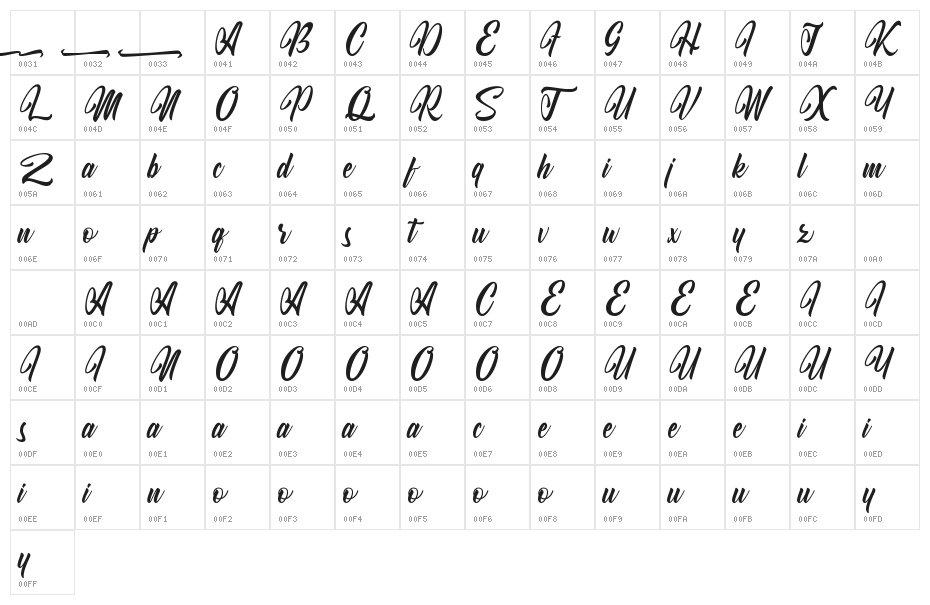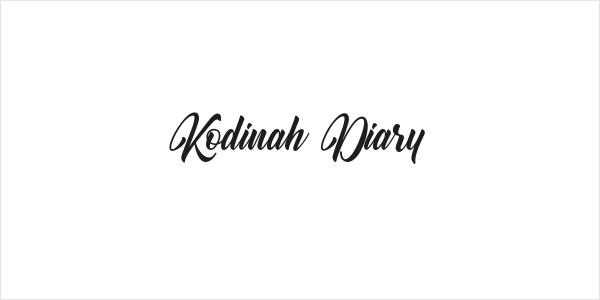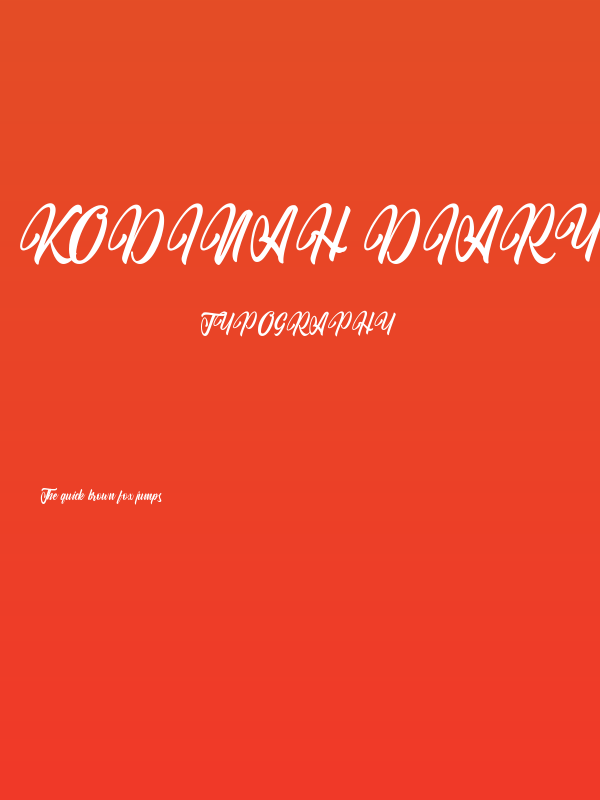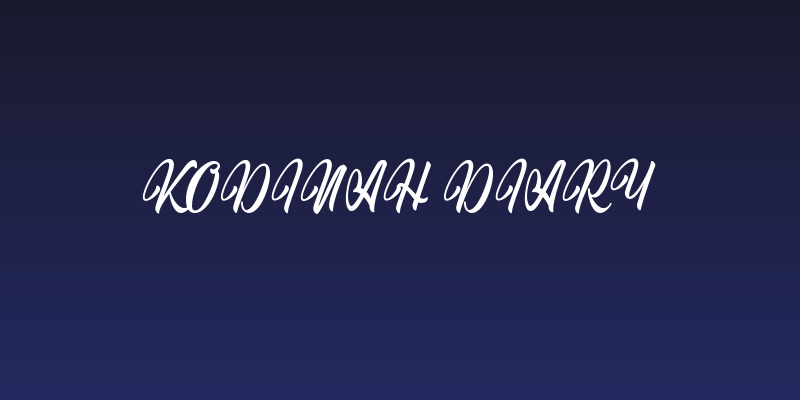
Kodinah Diary Font
Kodinah Diary Description
This font features a dynamic and flowing script style, characterized by its elegant and cursive letterforms. The uppercase letters exhibit a graceful, sweeping motion with a slight slant, while the lowercase letters maintain a consistent flow with rounded edges and smooth connections. The font conveys a sense of sophistication and fluidity, making it suitable for creative and expressive designs. The numerals and special characters are crafted with the same attention to detail, ensuring a cohesive look across all elements. The overall appearance is both stylish and legible, ideal for projects that require a touch of elegance.
| Proposed Projects | Ideal for wedding invitations, greeting cards, branding, and elegant logo designs. |